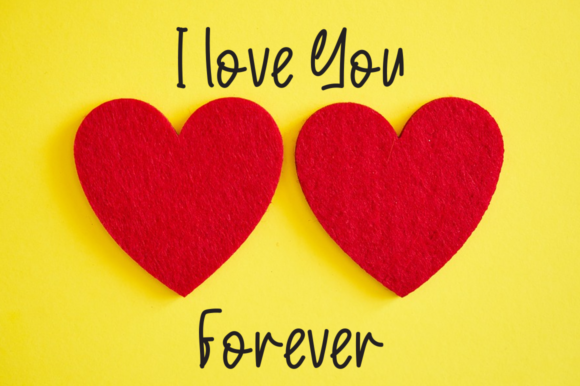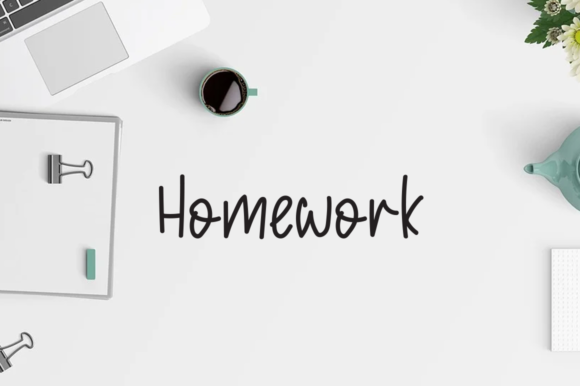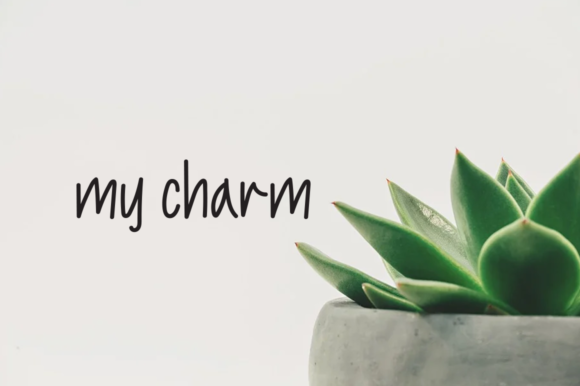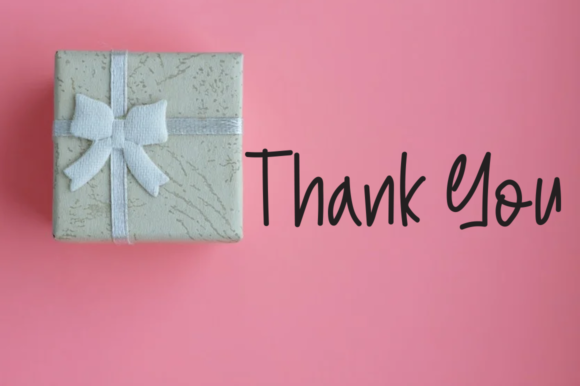
Introduction to Humble Rquest Font
Humble Rquest is a whimsical script font with a relaxed theme, featuring a lovely style.
Humble Rquest Font offers exceptional quality and versatility, making it a valuable addition to your design toolkit. Whether you’re creating for personal projects or commercial use, Humble Rquest Font delivers professional results.